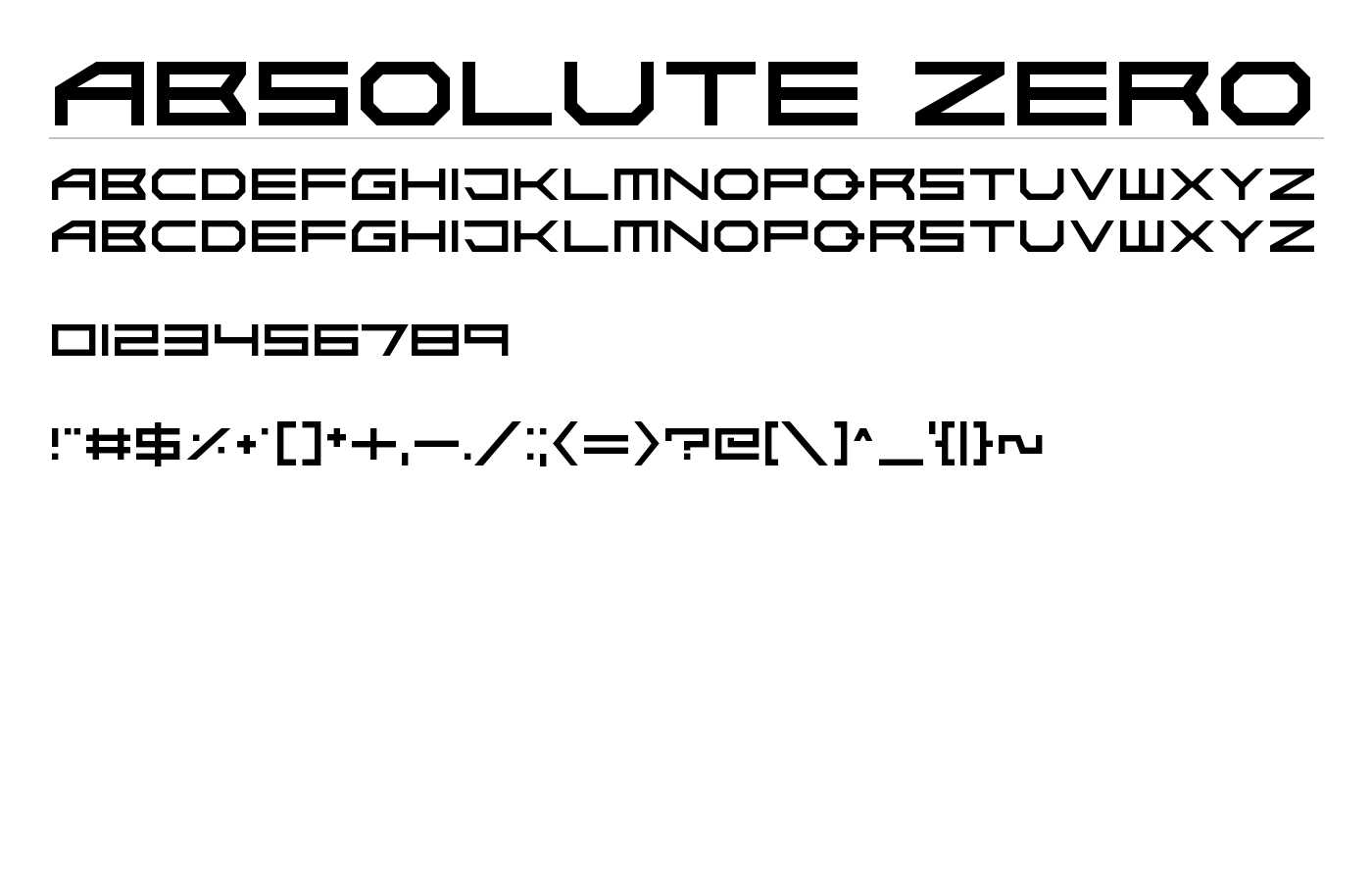
Absolute Zero is a bold, geometric sans-serif font with a futuristic and technical feel. Its angular letterforms and consistent stroke weight give it a strong, modern appearance, making it ideal for technology, sci-fi, and digital-themed projects. This font works best in headlines, logos, and branding where a distinctive, high-impact style is needed.
Absolute Zero Font
About Absolute Zero Font
| Font family | Absolute Zero Font |
| Designer | Darrell Flood |